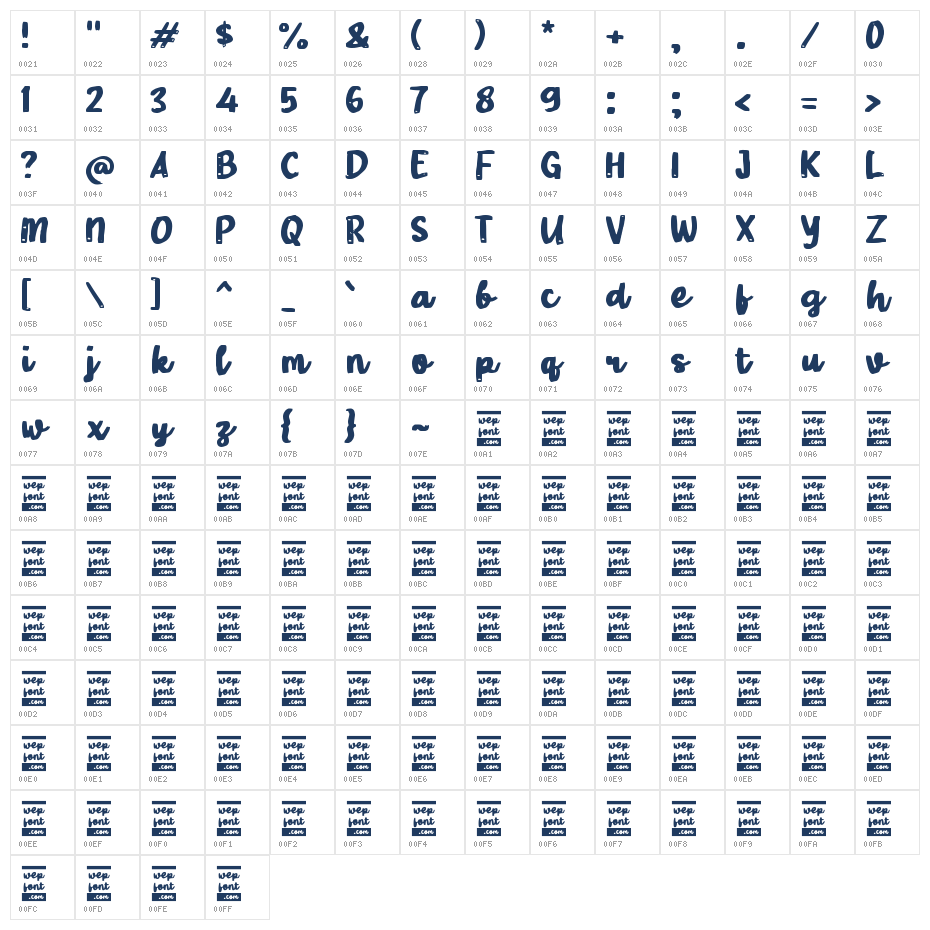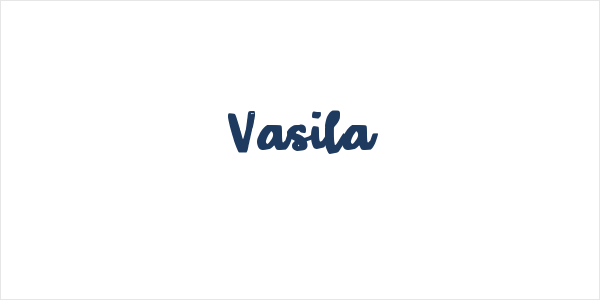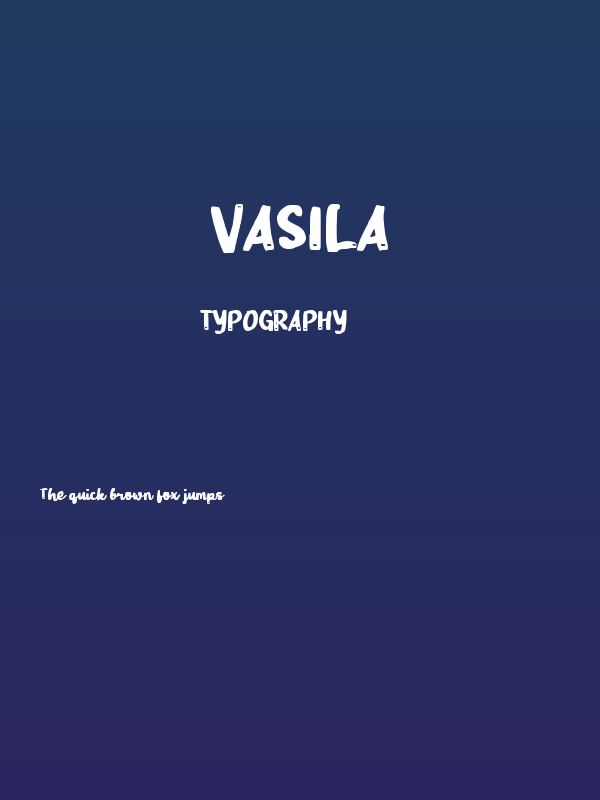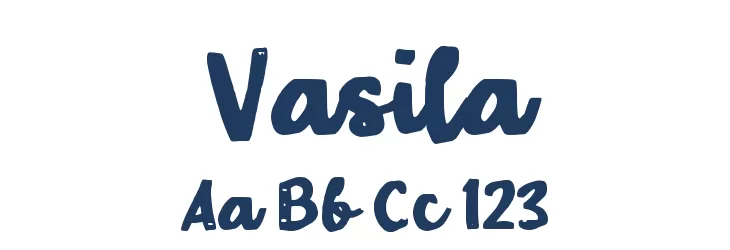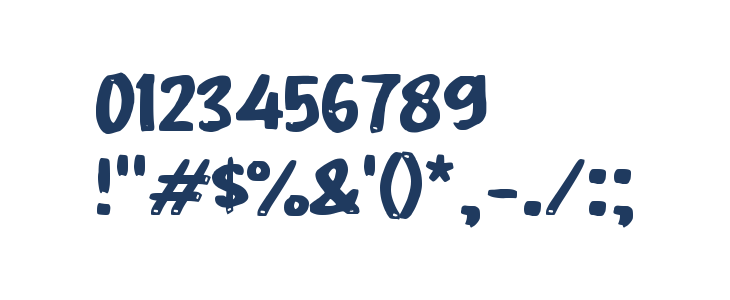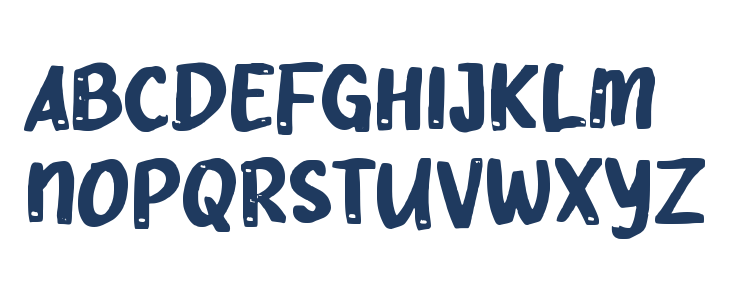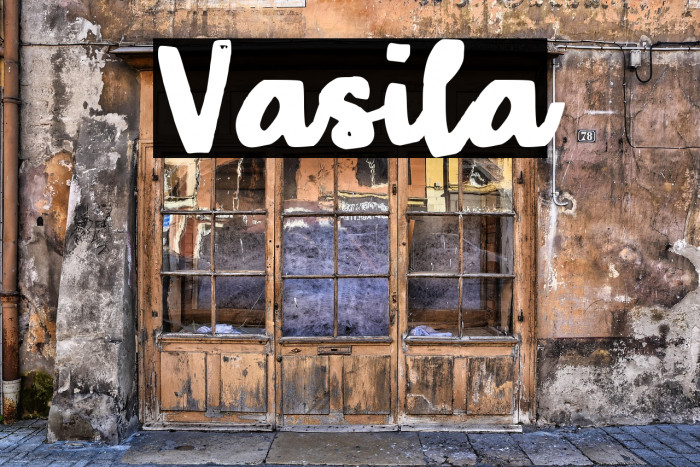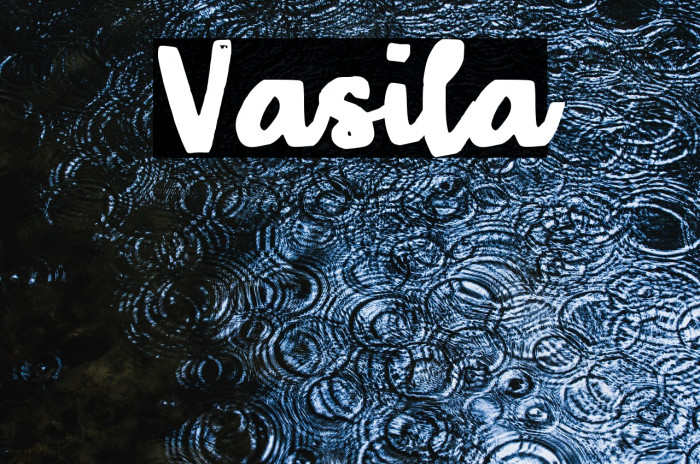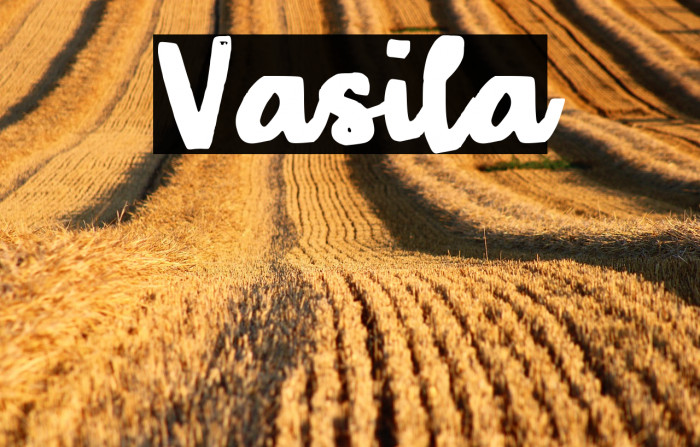
Vasila Font
Vasila Description
A playful, bold, handwritten style font with irregular, rounded characters and a casual appearance.
| Use Case | Headlines, Posters, Children's materials, Informal branding |